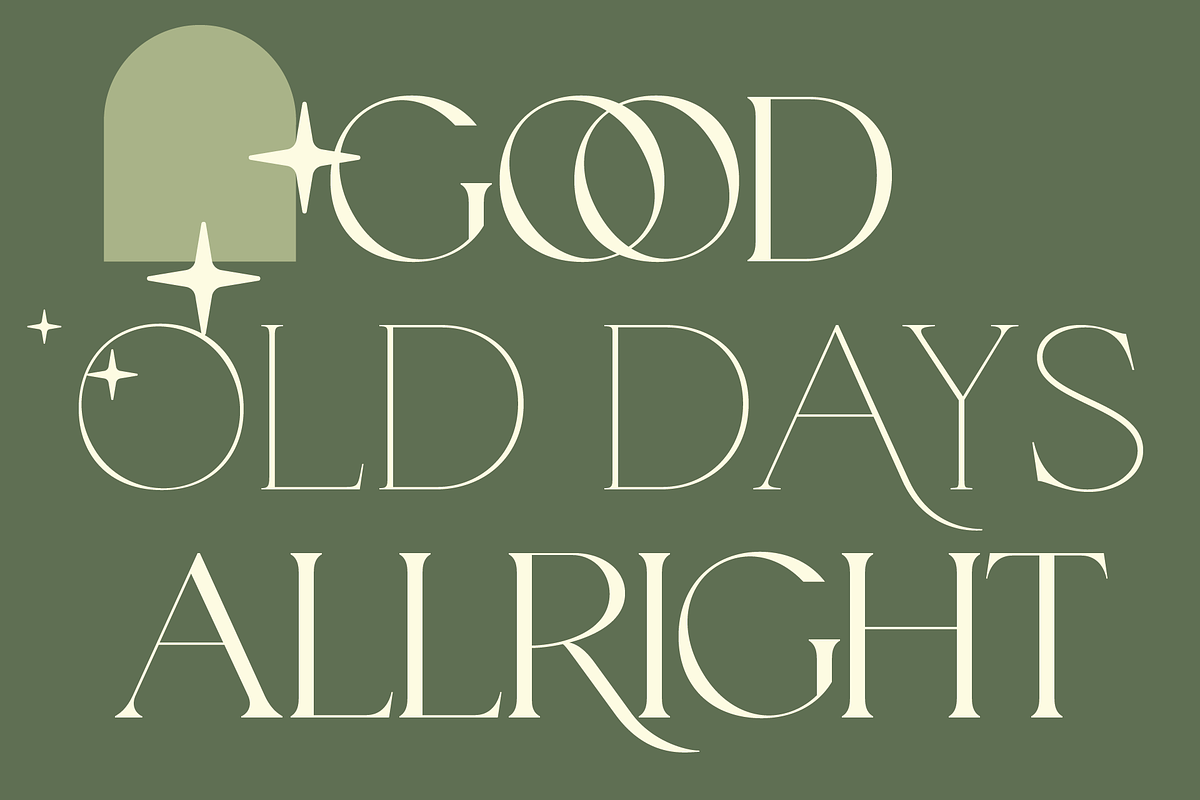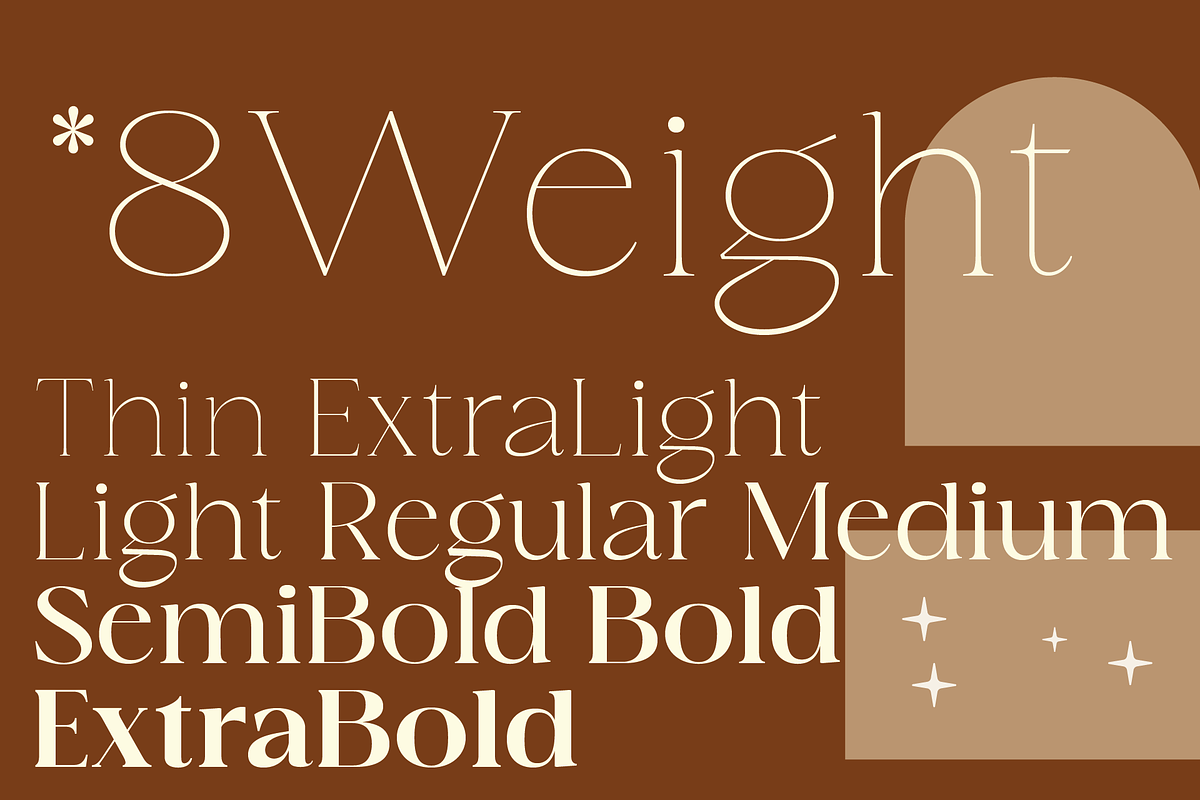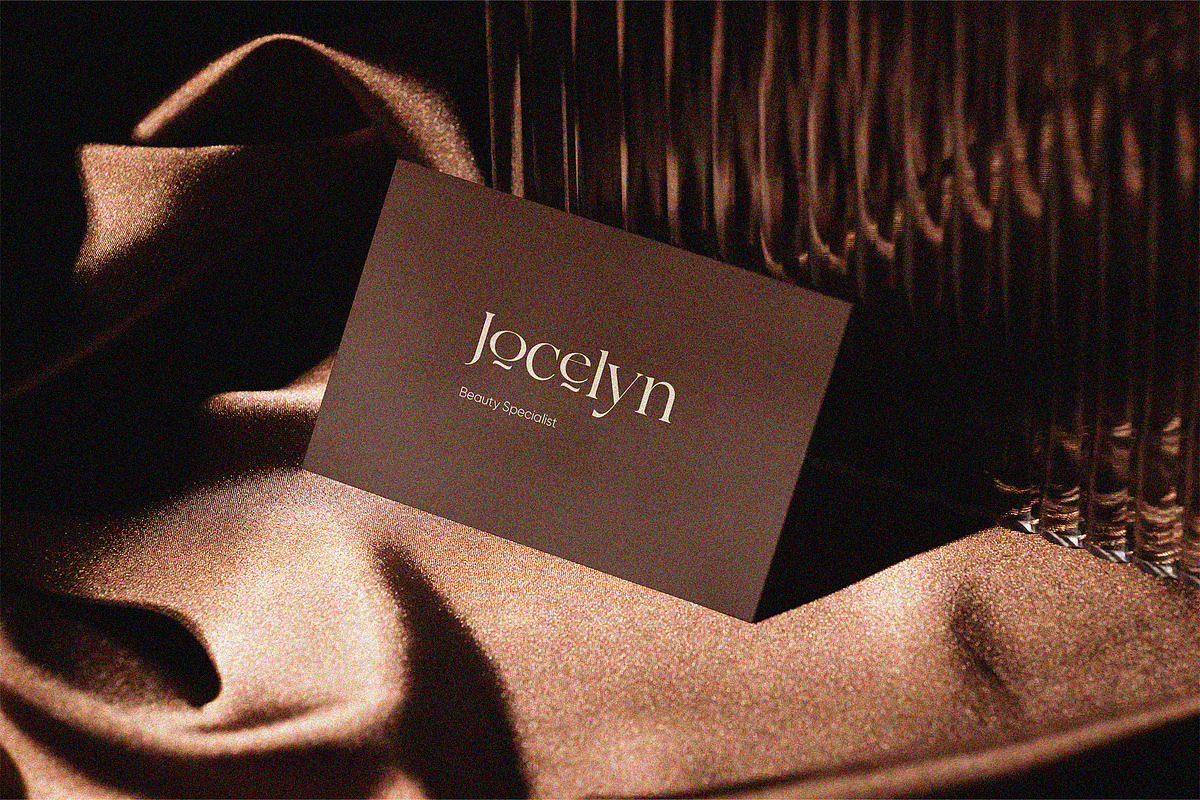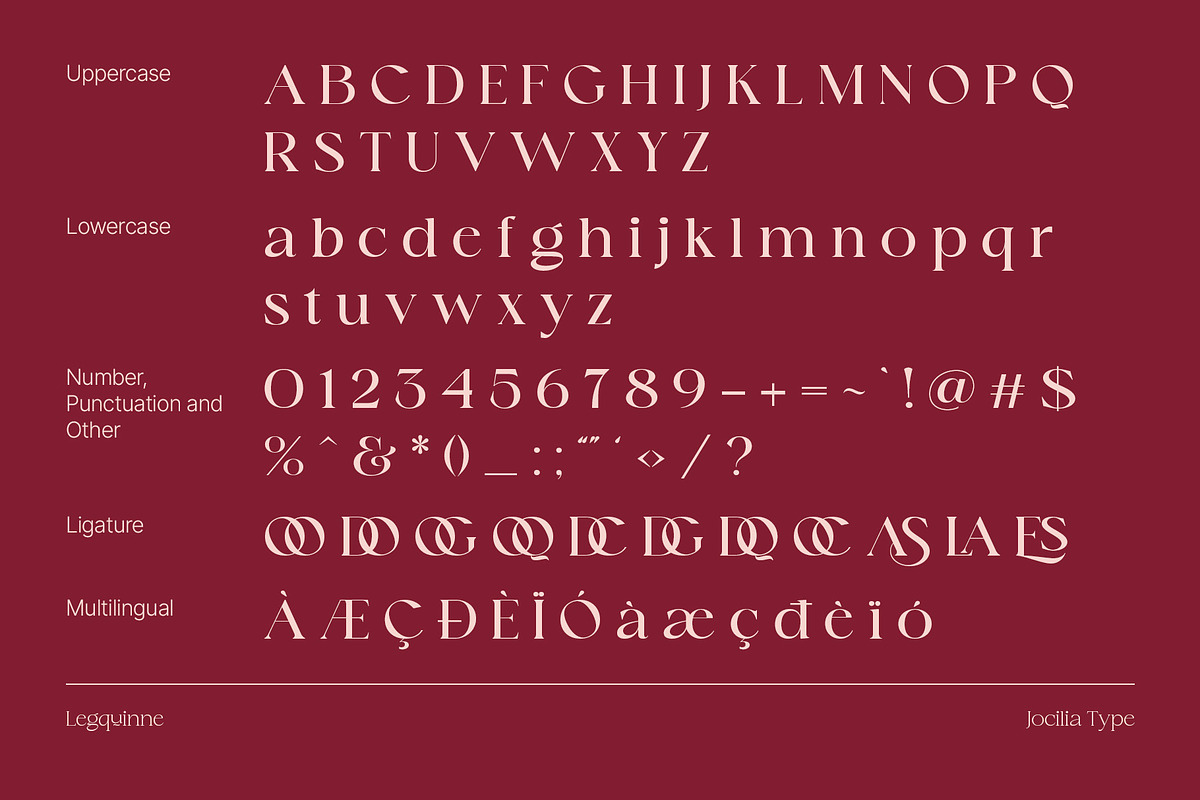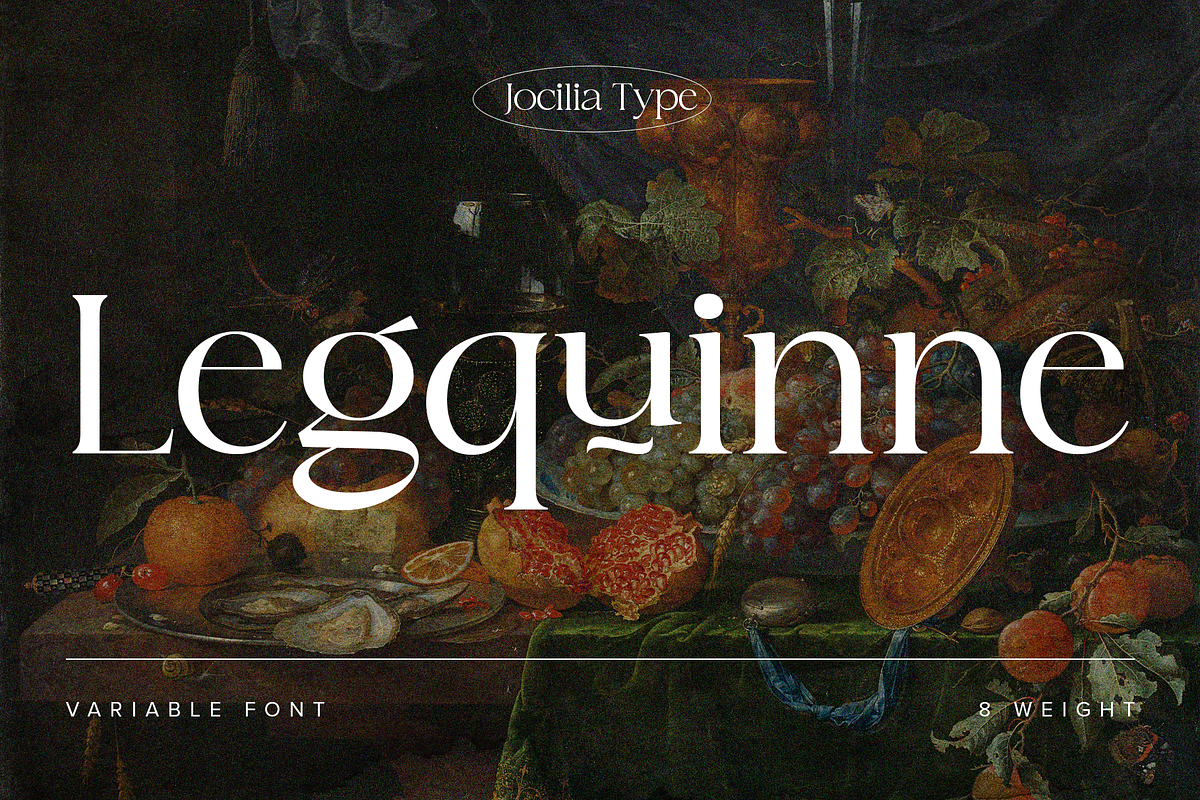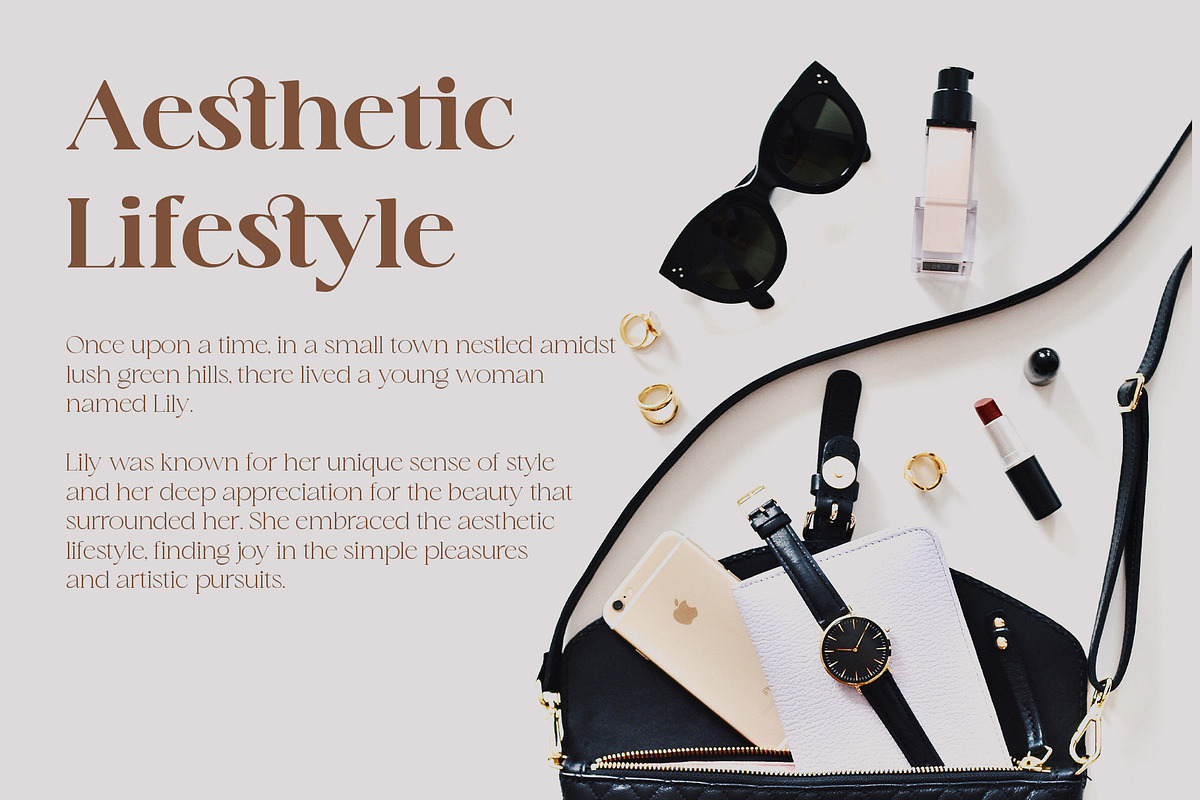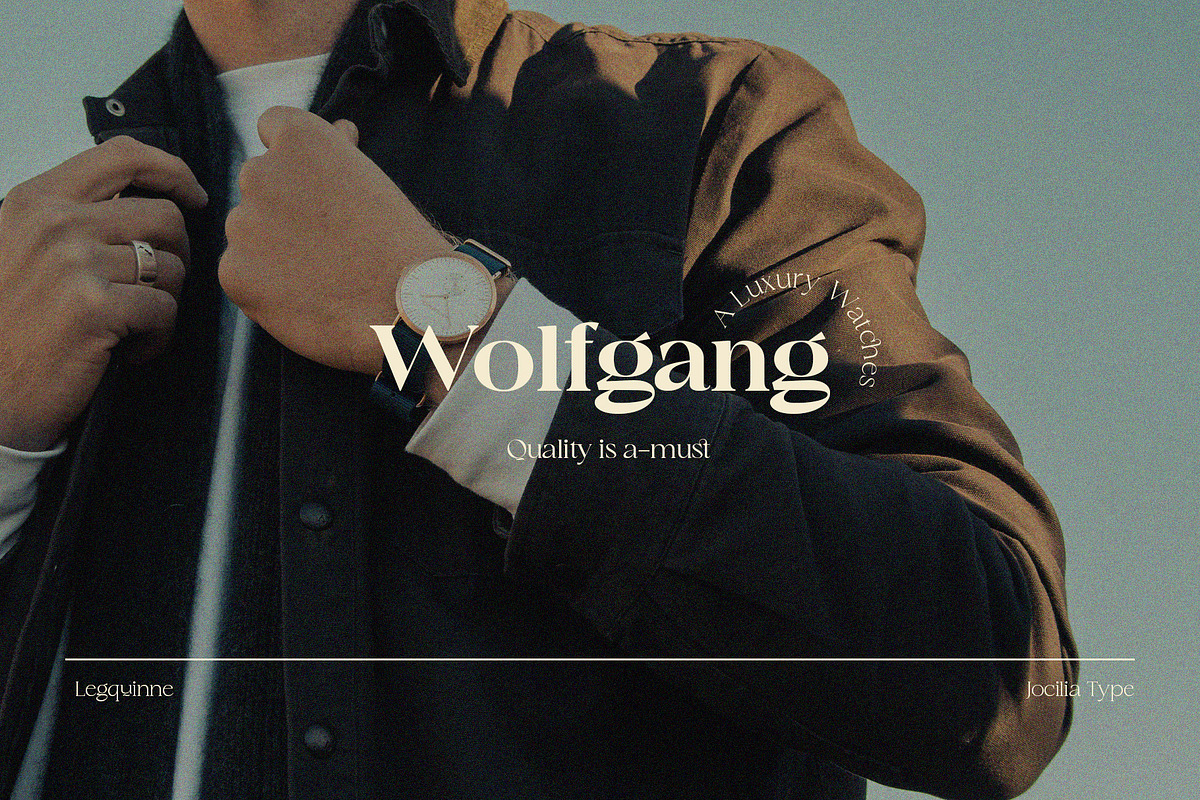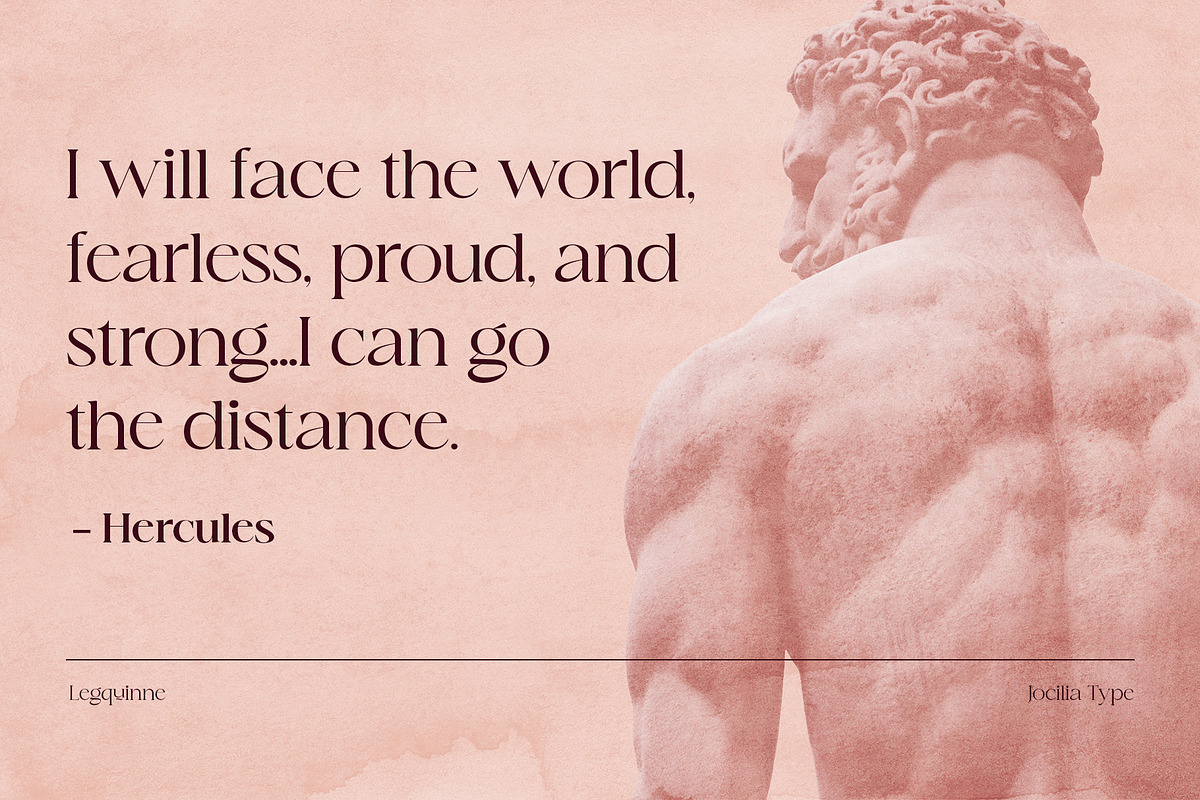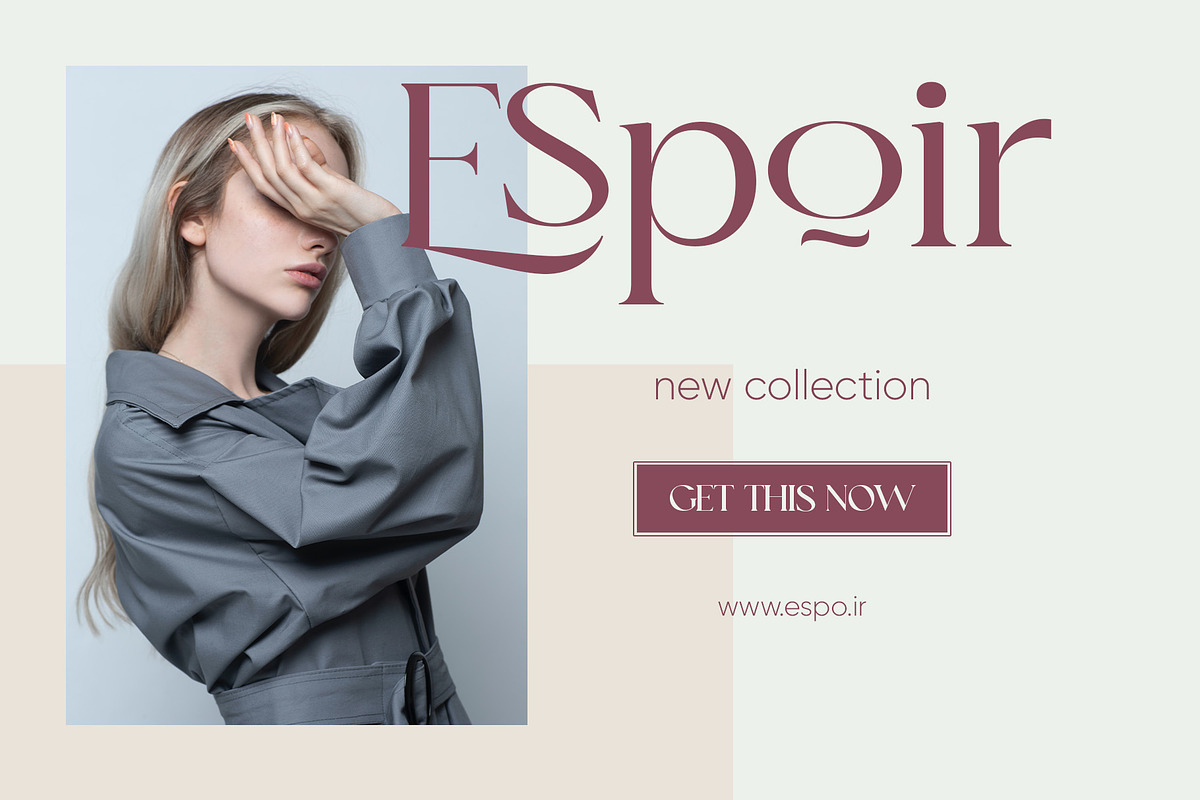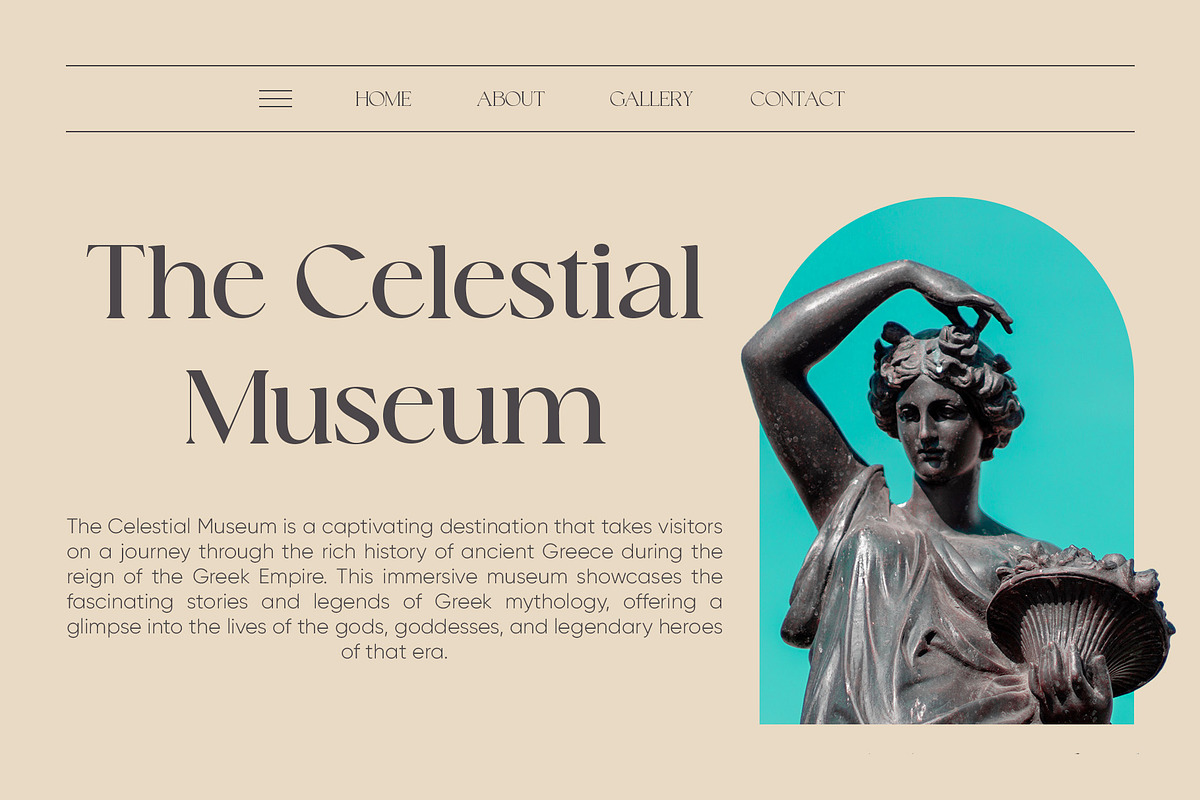
We introduce our product called Legquinne. We designed this serif type font to reflect elegance and modernity to create an aesthetic feeling in every word issued by Legquinne. With 8 weights and variables it is possible to present the flavors of our font. The total number of glyphs is 429 support for 93 Languages There is file in